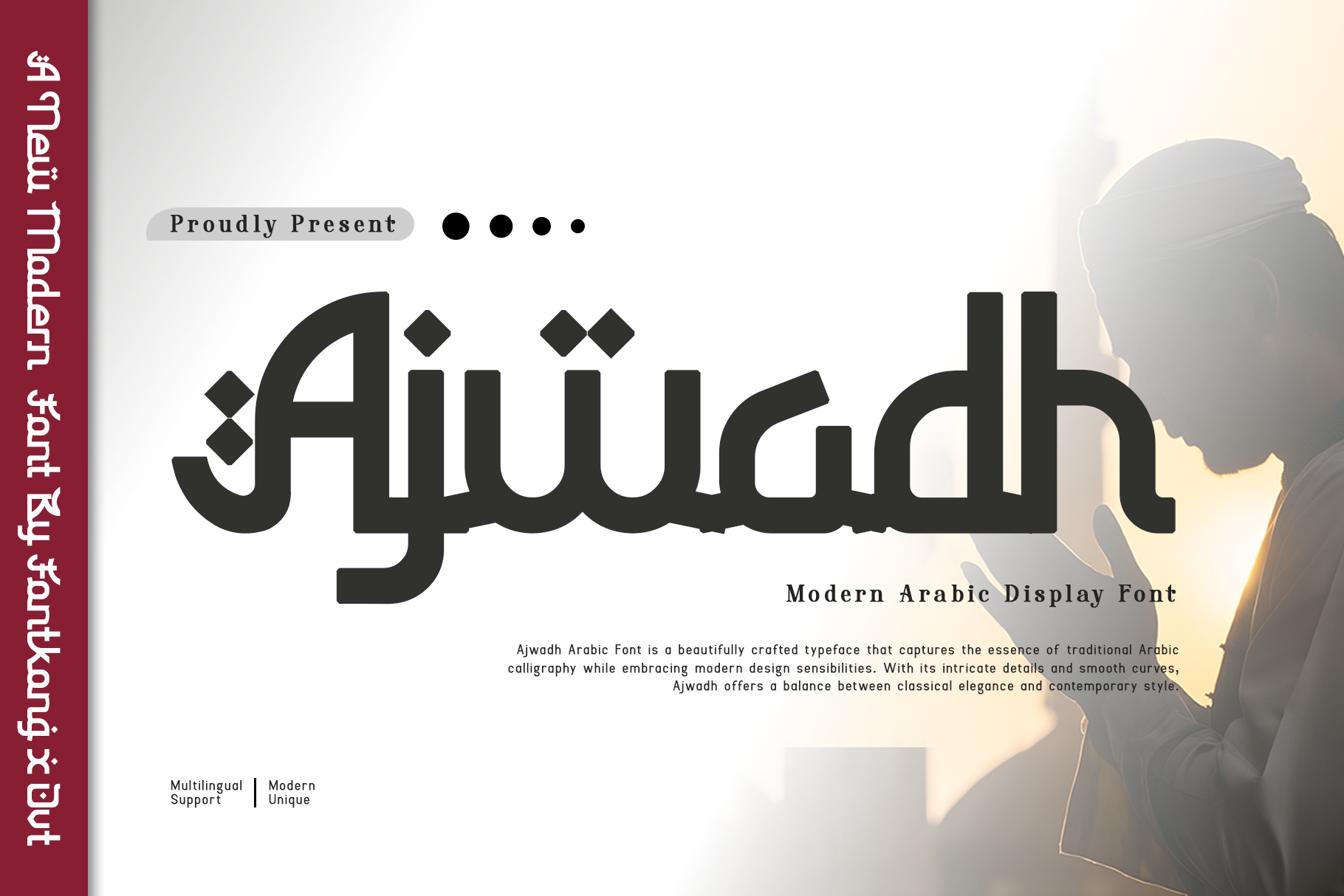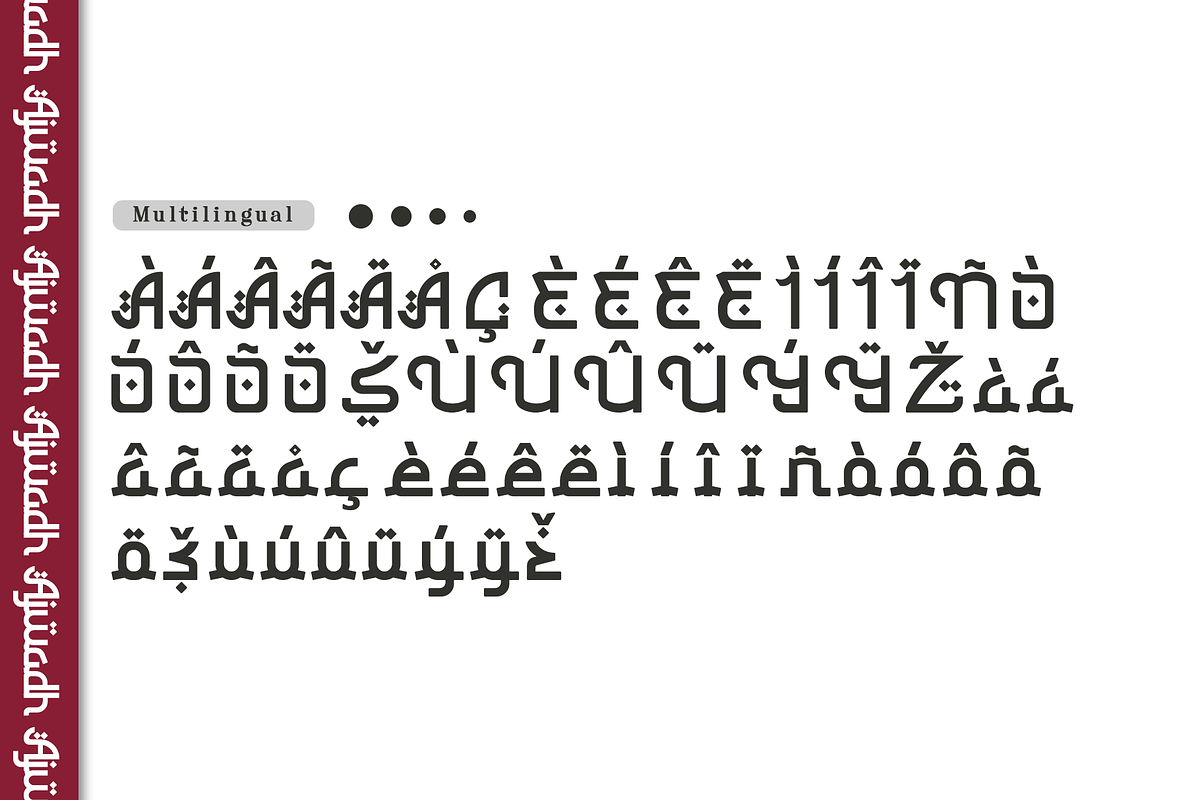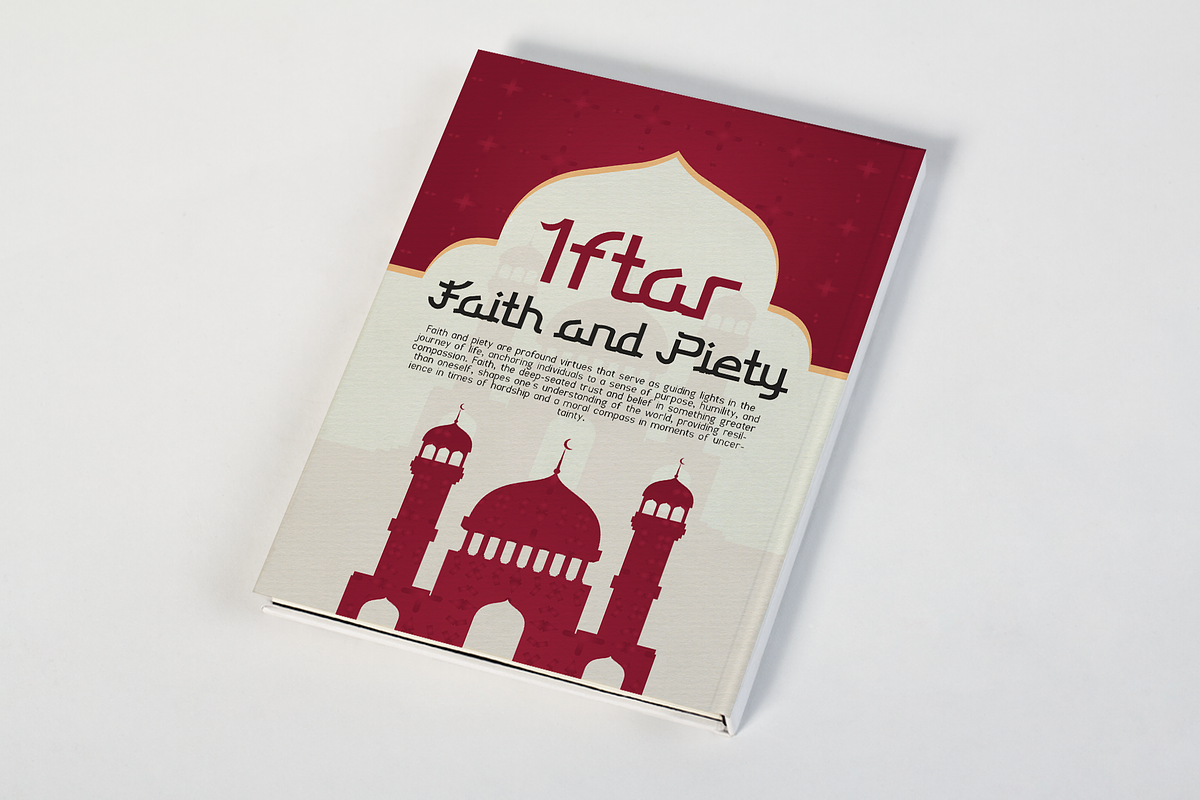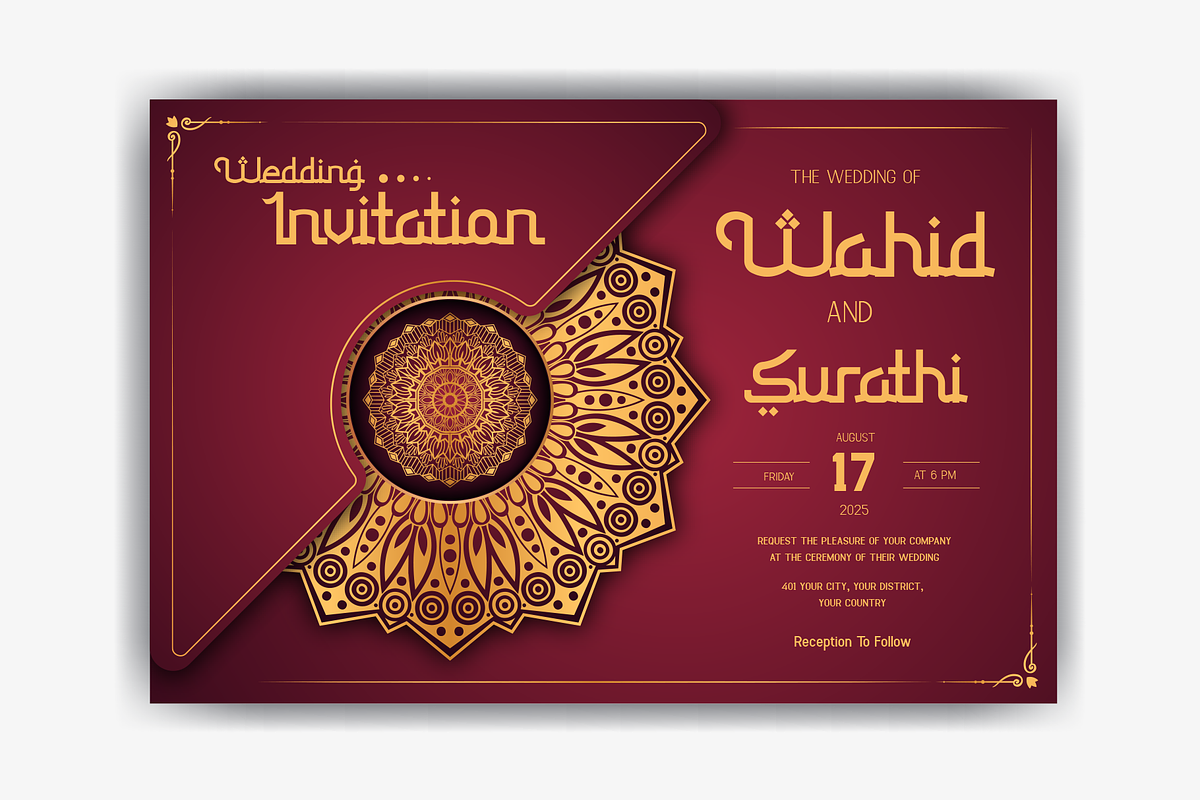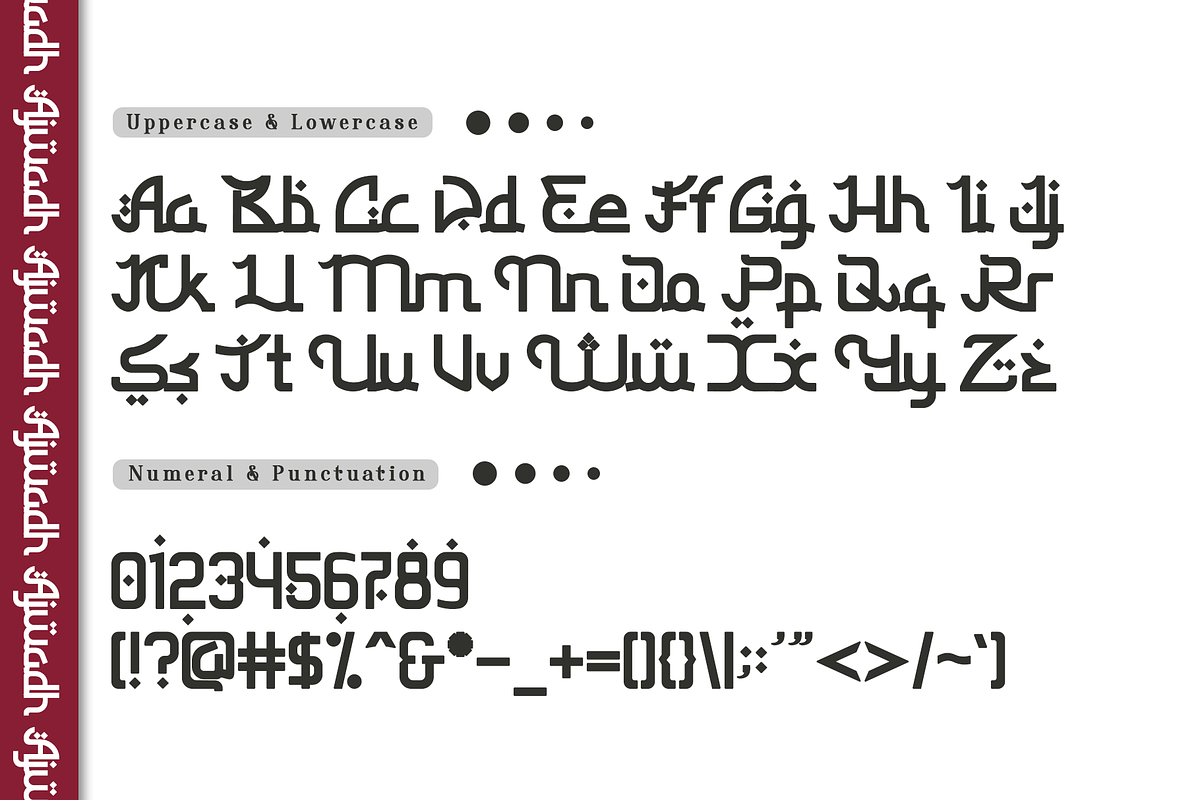
Ajwadh - Modern Arabic Display Font
Ajwadh is a modern Arabic display font that brings a bold, captivating look to your design projects. Its unique letterforms and decorative details make it ideal for branding, advertising, and contemporary display work. Ajwadh is crafted to command attention, whether used in headlines, logos, or stylish packaging. This font blends a modern aesthetic with traditional influences, making it a perfect choice for designers who want to infuse cultural richness with a contemporary edge in their projects.